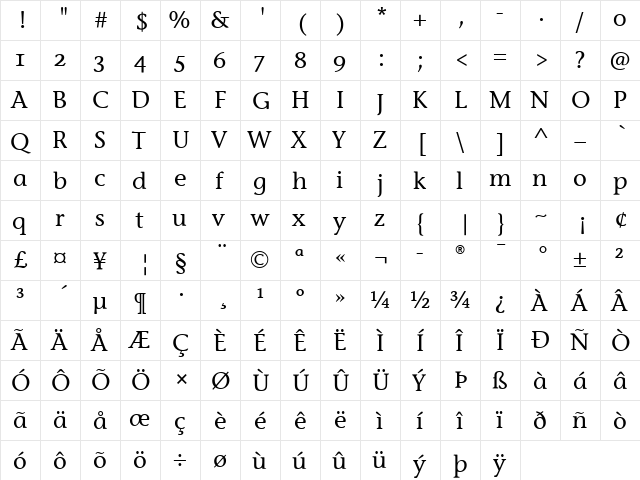
StoneInfOSITC Medium
| Foundry | International Typeface Corporation |
Design Context for StoneInfOSITC Typeface
StoneInfOSITC is a composed and adaptable typeface that performs quietly and consistently across a wide range of design contexts.